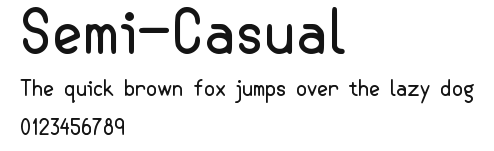
Semi-Casual Preview
• Font Name: Semi-Casual
• Full Font Name: Semi-Casual
• Designer: Walter E Stewart
About Semi-Casual.ttf
Semi-Casual.ttf is a modern, elegant sans-serif font designed for ultimate readability and visual harmony. Perfect for branding, headlines, web design, and print materials.